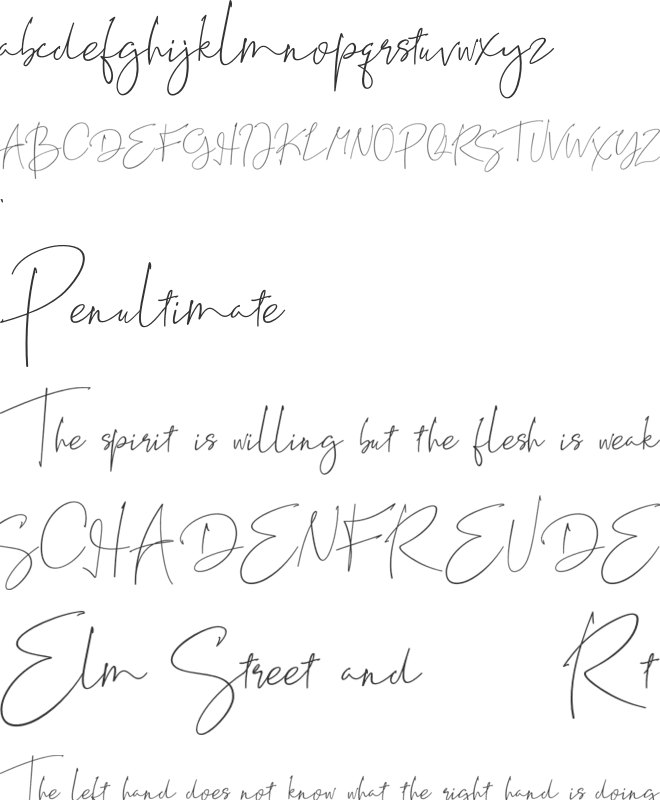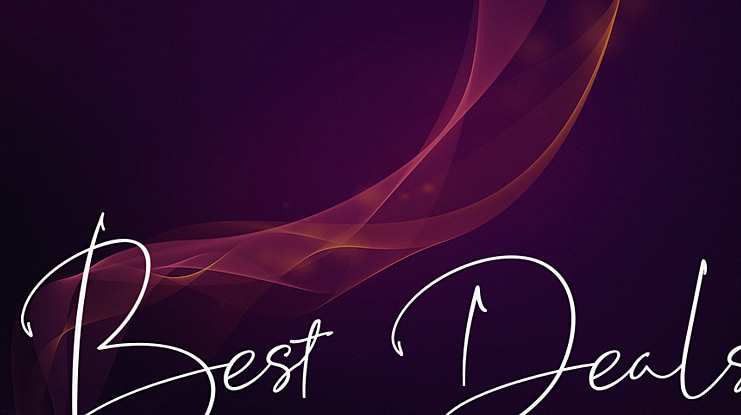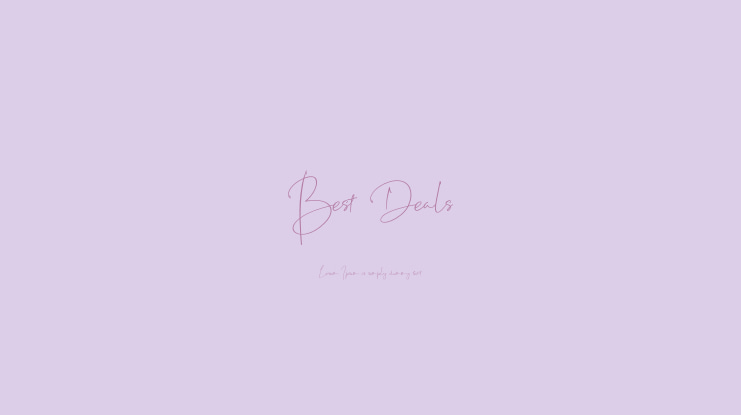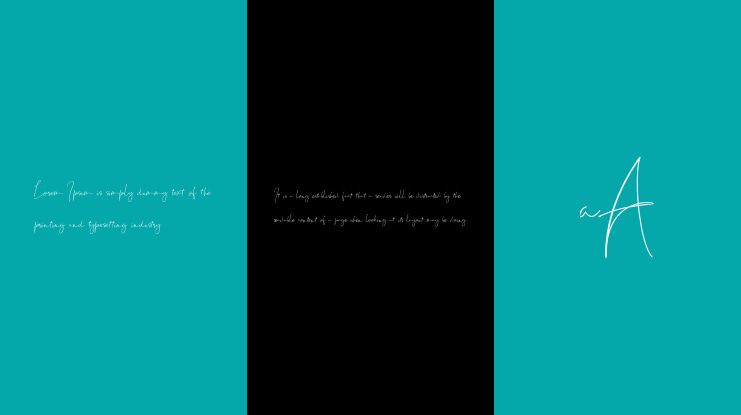
Best Deals Font
Best Deals is a type of signature font, this font is the style of real ink pens,and this font is equipped with ligature, and supports language, which makes it suitable for, Logo,Posters,Businness cards,Merchandise,Wedding invitations,magazine,book,Greeting cards,Banners,Blogs,Clothing, Water based paint designs,Prints,Quotes,clothes, And more! Best Deals has given PUA encoded (fonts with special code).
This Font Equipped: -Uppercase -Lowercase -Figures & Punctuation -Ligatures -Language Support